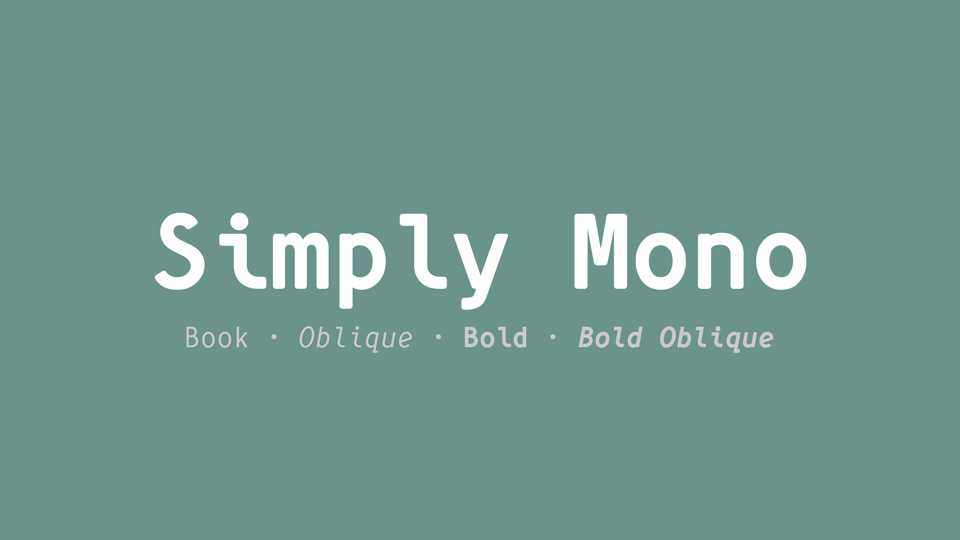
Download Simply Mono font, a modern monospaced typeface, good looking on computer screen or web site. Simply Mono font has balanced and readable design, perfect for diverse uses in text setting, headings and logotypes.
Designer: Wojciech Kalinowski